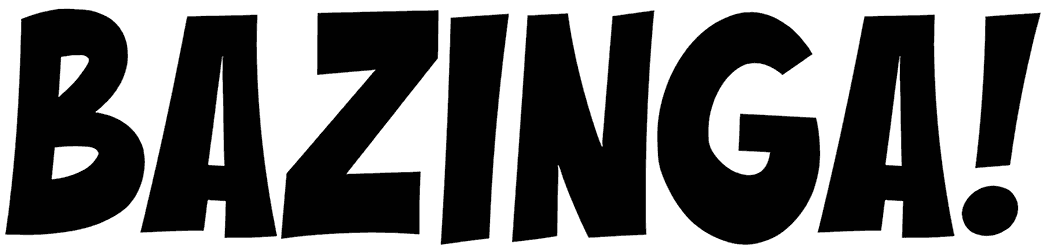
Bazinga! Font
If creating a feeling of vivacity, jauntiness, fierceness, or momentum is your main purpose in designing graphic content, then you should never overlook a comic font the same as the Bazinga!.
Since it is designed with bold and crooked letters, this masterpiece can be your assistant in designing high-end storybook covers, logos, illustrations, flyers, or product packaging. The flattering point about this all-caps masterpiece is that it widens your selection range by providing two different styles.
Buzinga! is a fabulous new layered comic book style font that is inspired by Sheldon favorite jokes word – Bazinga! You can combined this font with any layered style which included in this font family. This font is Perfect for adding a comical feel to your designs, whether it is comical quotes, label, logotype poster and many more!
Buzinga! features:
A full set of uppercase charactersNumbers & punctuation
Multilingual language support